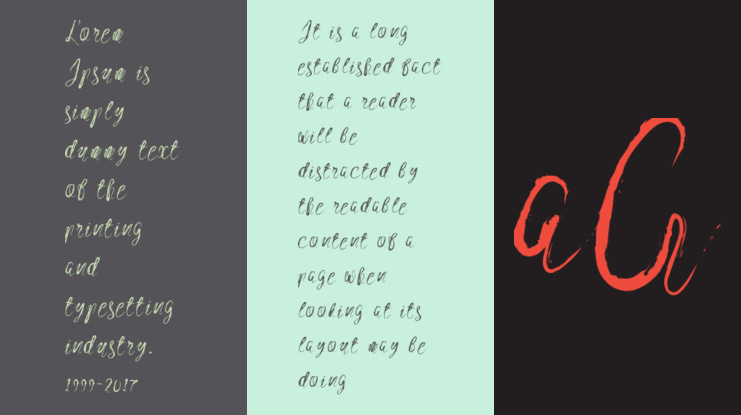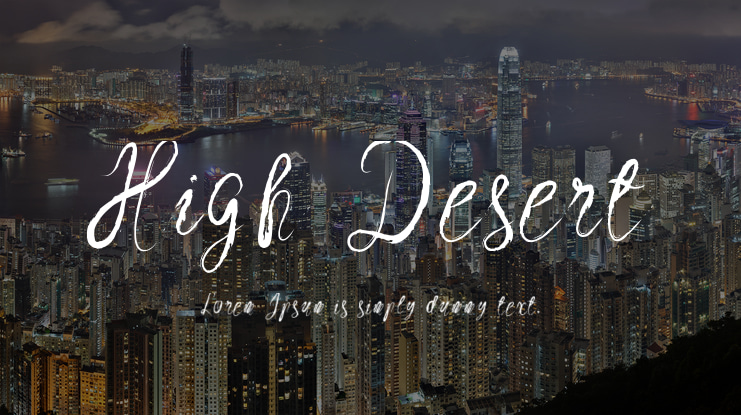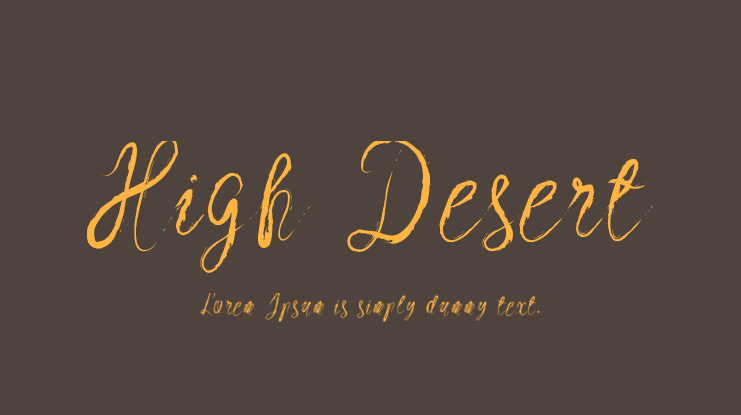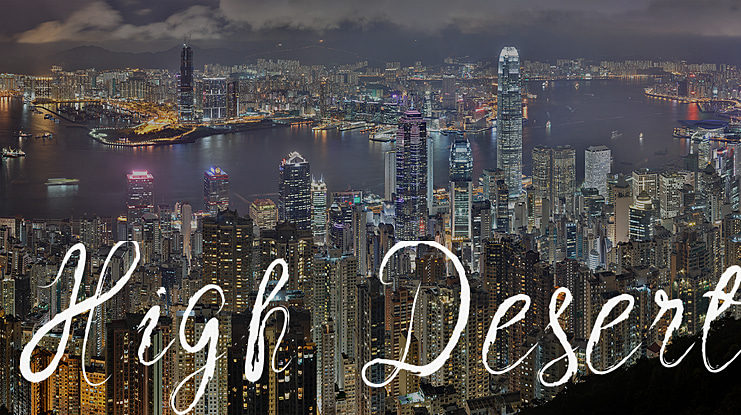
High Desert Font
Introducing a cool dry brush script, it's unique in spacing and lowercase height to uppercase ratio, very cool brush effect, will nice for title, or subtitle.
Supported to basic Latin characters.